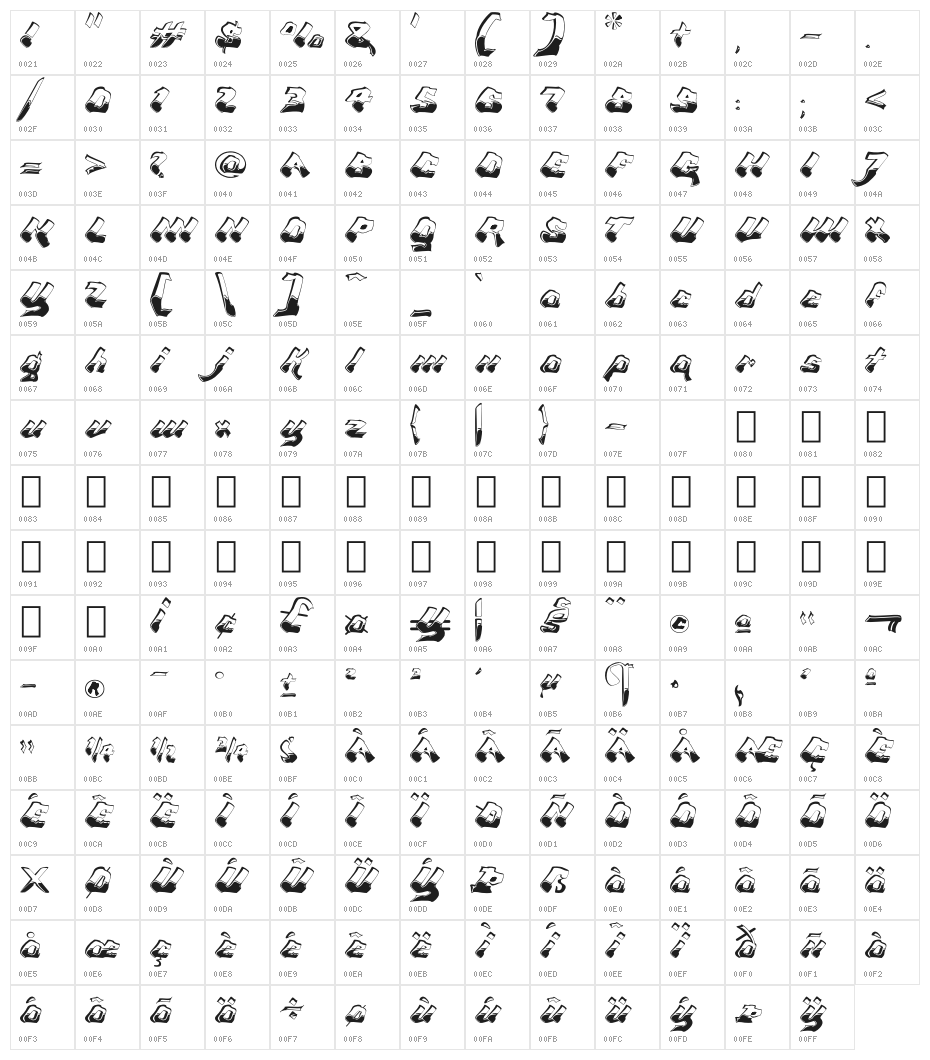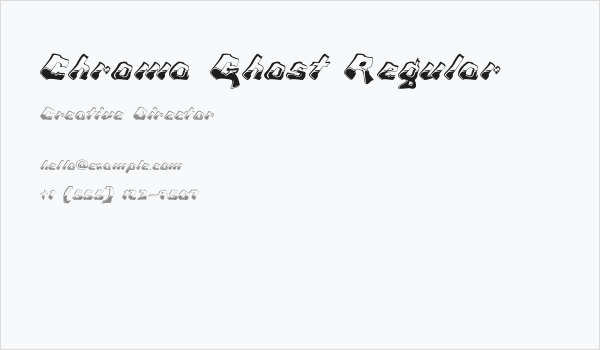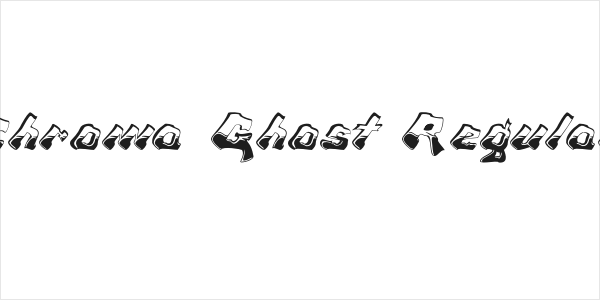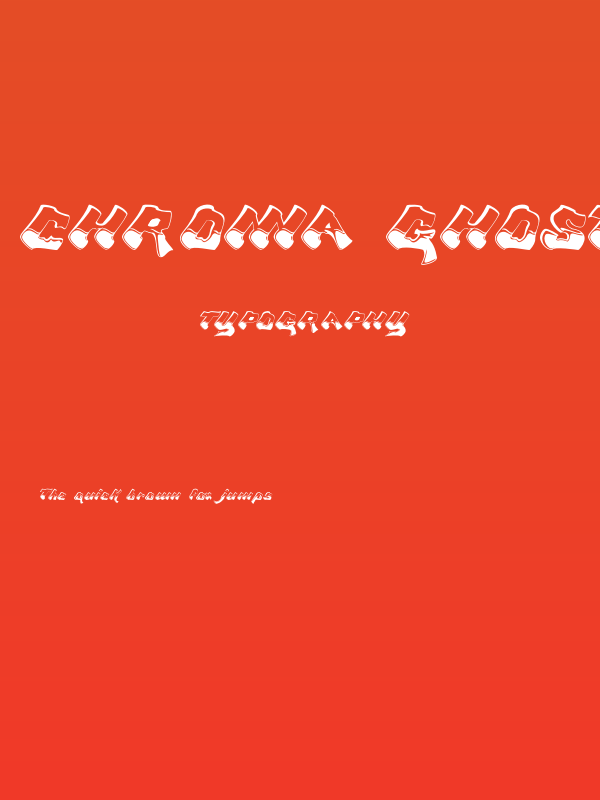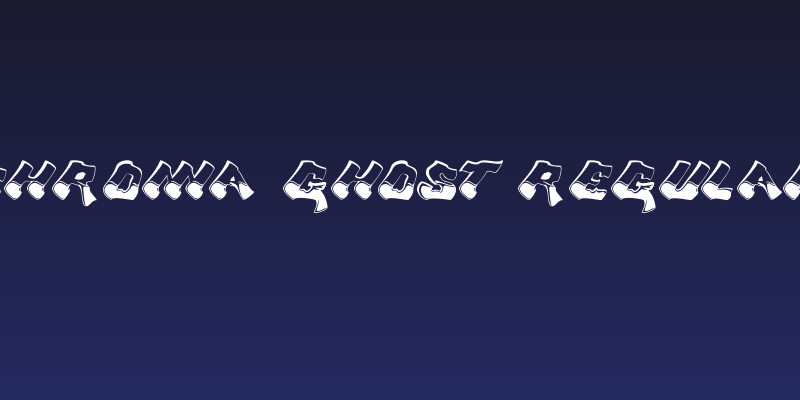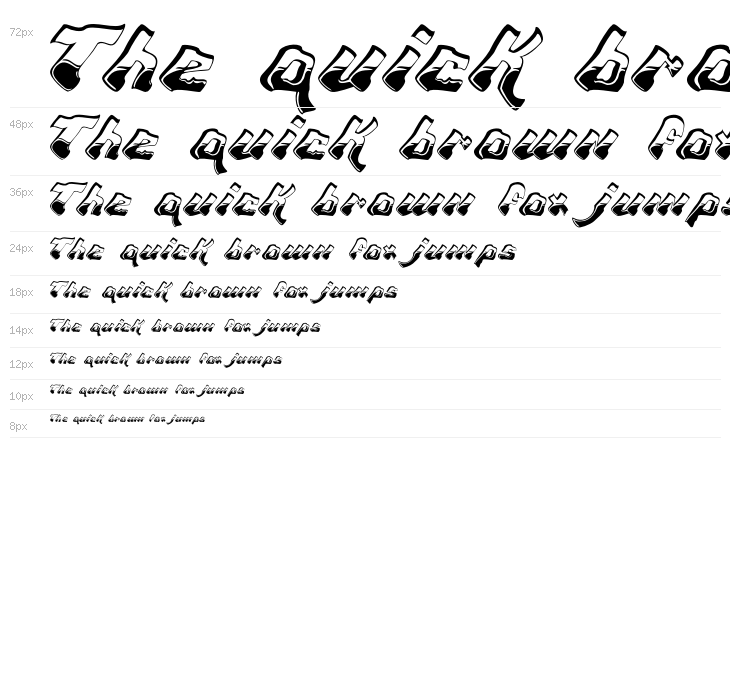
Chroma Ghost Regular Font
Chroma Ghost Regular Description
This font features a bold, three-dimensional design with a shadow effect that gives it a ghostly, ethereal appearance. The letters are stylized with sharp edges and curves, creating a dynamic and eye-catching look. The uppercase and lowercase letters maintain a consistent style, while the numbers and special characters complement the overall aesthetic. The font's unique design makes it suitable for creative and artistic projects, where a striking and memorable typeface is desired.
| Proposed Projects | Ideal for Halloween-themed designs, posters, video game graphics, and branding that requires a bold and unique typeface. |